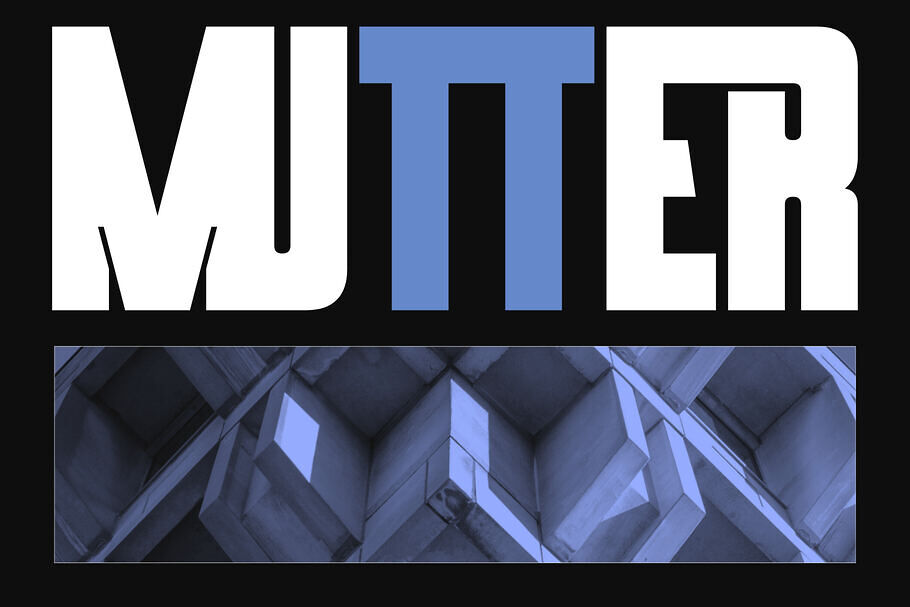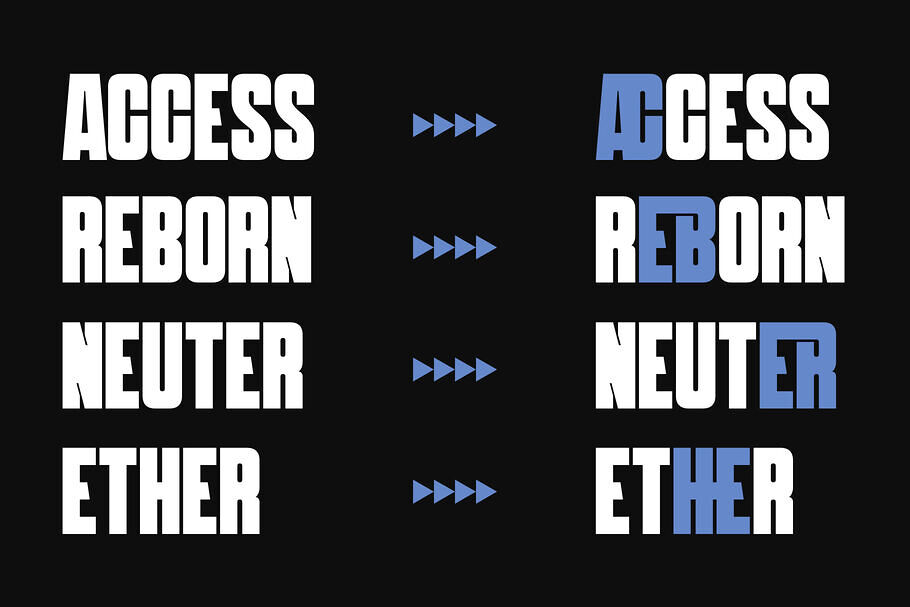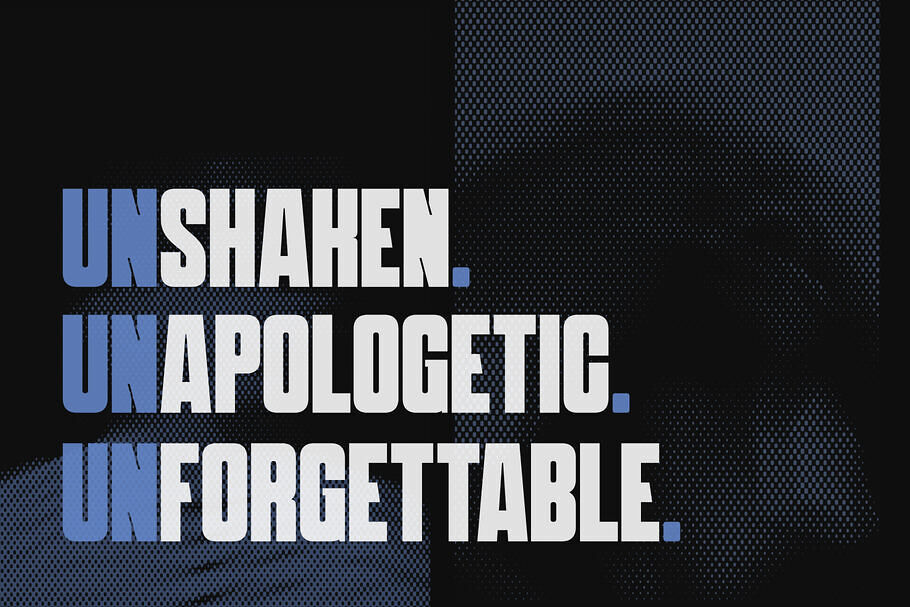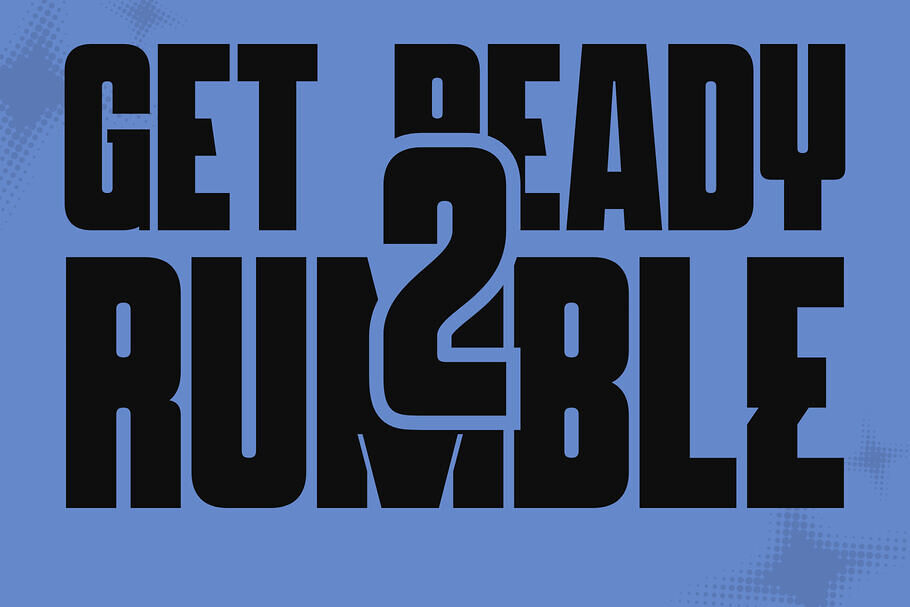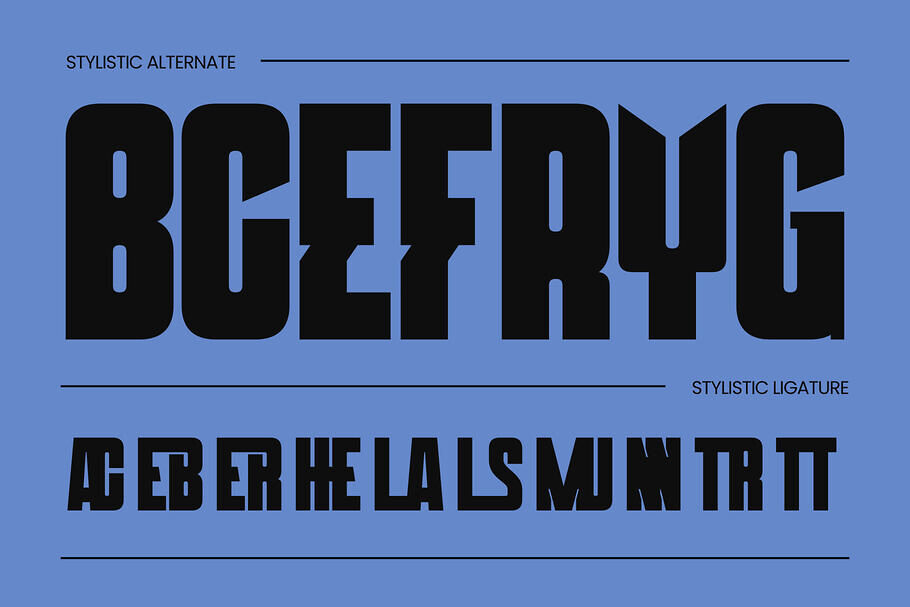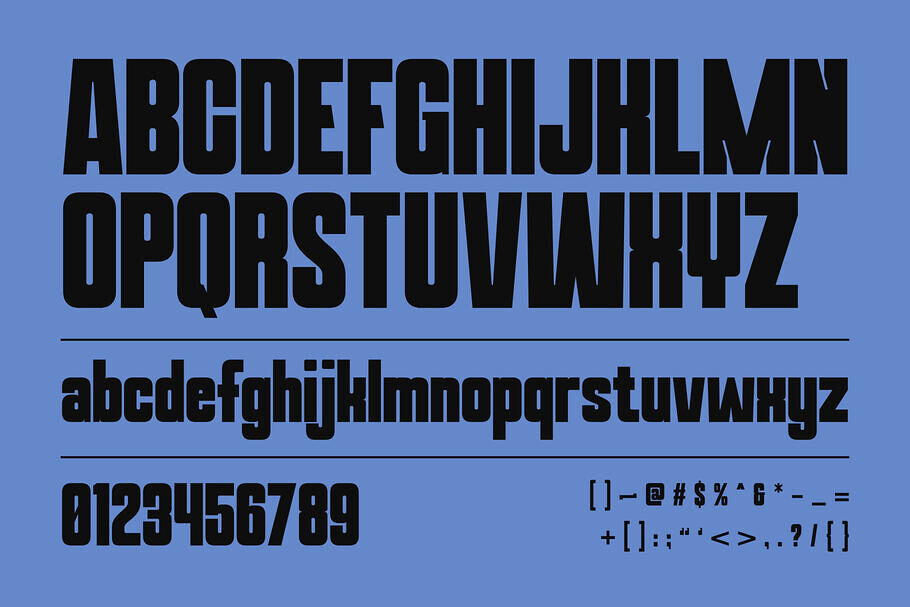
Mertto Modern Font
Mertto Modern is a high-impact, ultra-condensed display font that redefines contemporary typography through architectural precision. Characterized by its sturdy, block-like silhouettes and dramatic verticality, Mertto blends brutalist aesthetics with urban sophistication.
This versatile typeface features unique stylistic ligatures and aggressive alternates, perfect for commanding headlines, brutalist posters, and edgy streetwear branding. Its tight kerning and monolithic weight ensure maximum readability in high-pressure layouts.